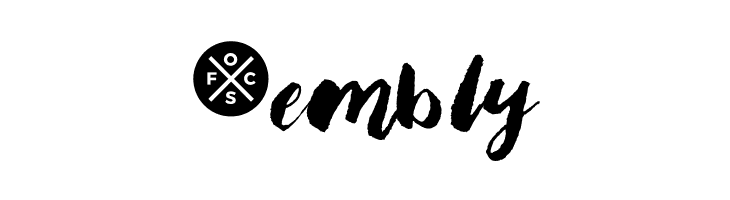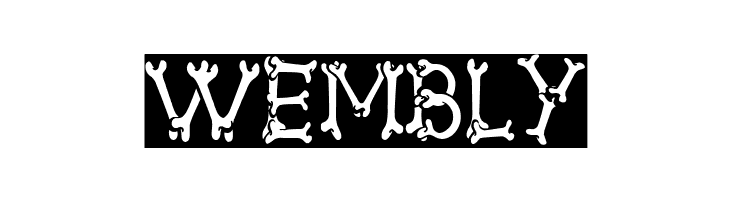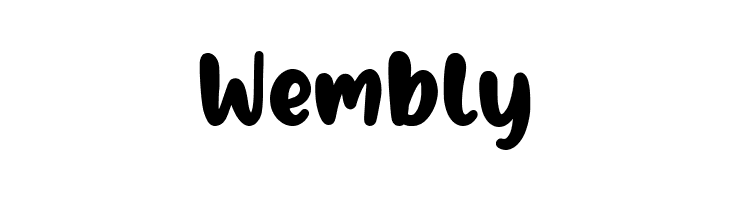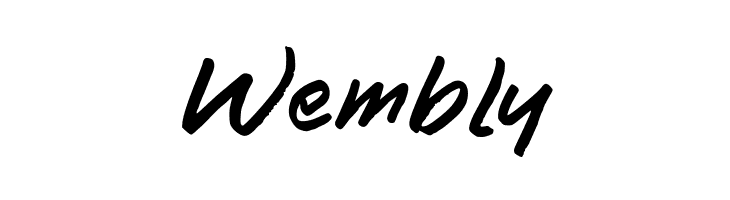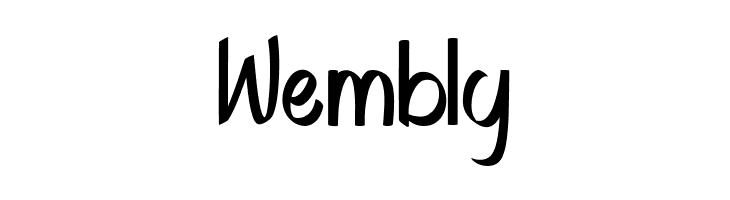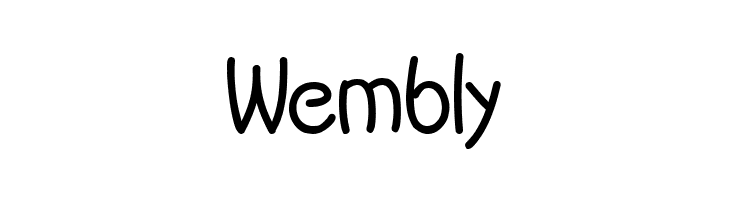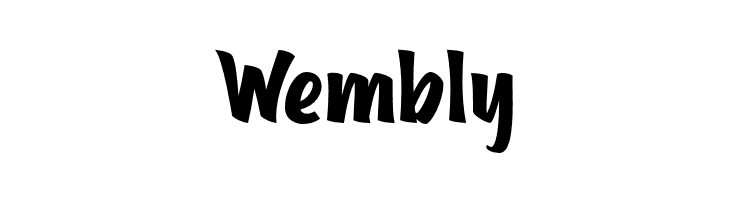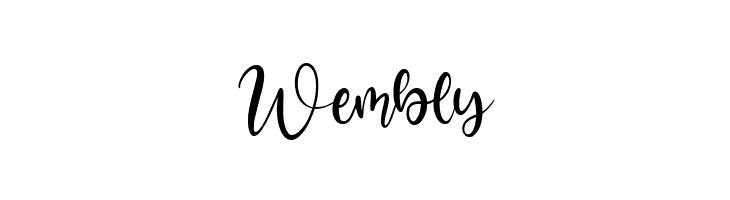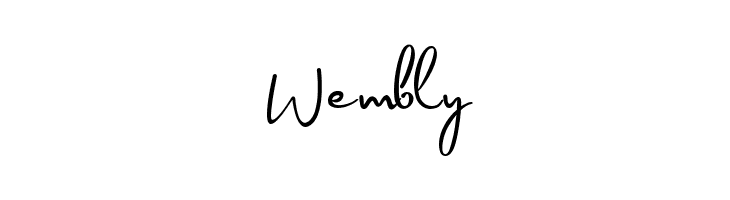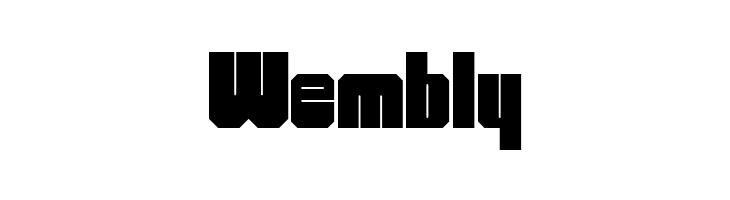
• Bonagea
A fluid and elegant handwritten font with dynamic curves and playful special characters.
• Bondjlo
A classic serif font with modern elements and elegant proportions.
• Bonesitos
A bone-themed decorative font perfect for spooky designs.
• Bonitha Lowercase
A decorative, modern calligraphy script with elegant swashes.
• Bonney Lass
A whimsical and decorative font with elongated, curved strokes and playful flourishes.
• BOOK SHELVES
A modern font with geometric influences and elongated strokes.
• Boom Shanker
A playful, hand-drawn font with stitched embellishments and a whimsical style.
• BoomBox
A bold, geometric font with a futuristic and modern aesthetic.
• Boring Showers
A playful, handwritten font with bold strokes and a casual style.
• Bostana
• Bostwy
A lively handwritten font with fluid, cursive strokes and a personal touch.
• Bottler Shake
A playful, rounded font with a whimsical and friendly style.
• Bottsen Zatte
A playful, handwritten-style font with bold, dynamic strokes.
• BouldLight
A bold, textured font with a brush-like appearance, perfect for impactful designs.
• Boulevard
A bold, decorative font with circular cutout patterns for a playful, artistic look.
• Bouncy Balloons
A bold, balloon-like decorative font with rounded, playful shapes.
• Braille Cursive
A bold, angular font with a modern and futuristic aesthetic.
• Brambank
A playful, handwritten font with whimsical loops and curls.
• Brankovic
• Brantone
A playful, rounded font with smooth curves and uniform strokes.
• Bread Day
Casual handwritten script font.
• Break Age Graffiti